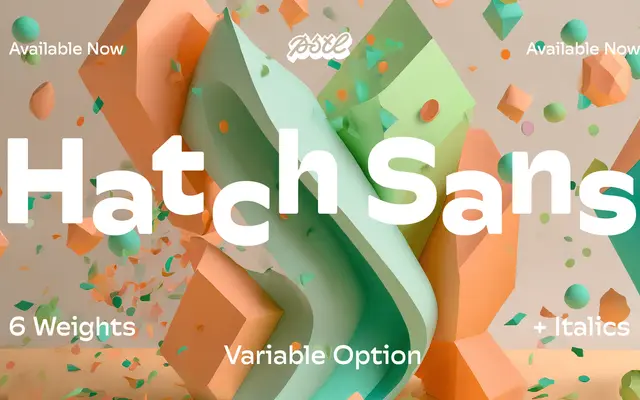
Hatch Sans
A six-weight humanist sans companion to the Hatch family, offered with matching italics, a variable font axis and several OpenType alternates for letterform flexibility.
Hatch Sans offers six weights from Thin to Bold, each with a matching italic, and ships as a variable font covering the full weight range. OpenType features include alternate single and double-storey forms for 'a' and 'g', looped variants for 'k' and 't', and a schoolbook 'y', giving designers fine control over voice and legibility. It is positioned as a companion to the existing Hatch serif family, extending its range into sans-serif territory.
Hatch Sans presents single and double-storey alternates alongside looped letterforms, suggesting a humanist sans-serif with warmth and flexibility rather than a strict geometric or grotesque construction.